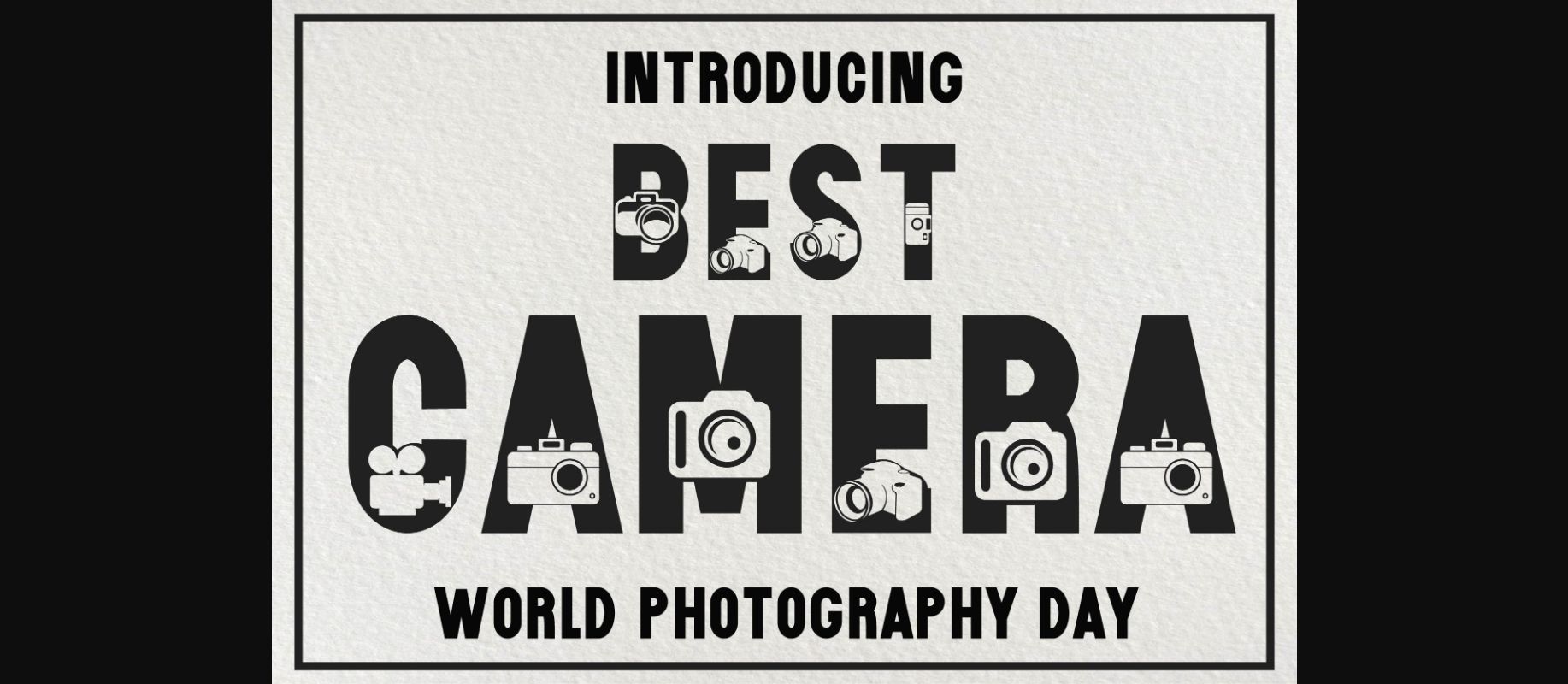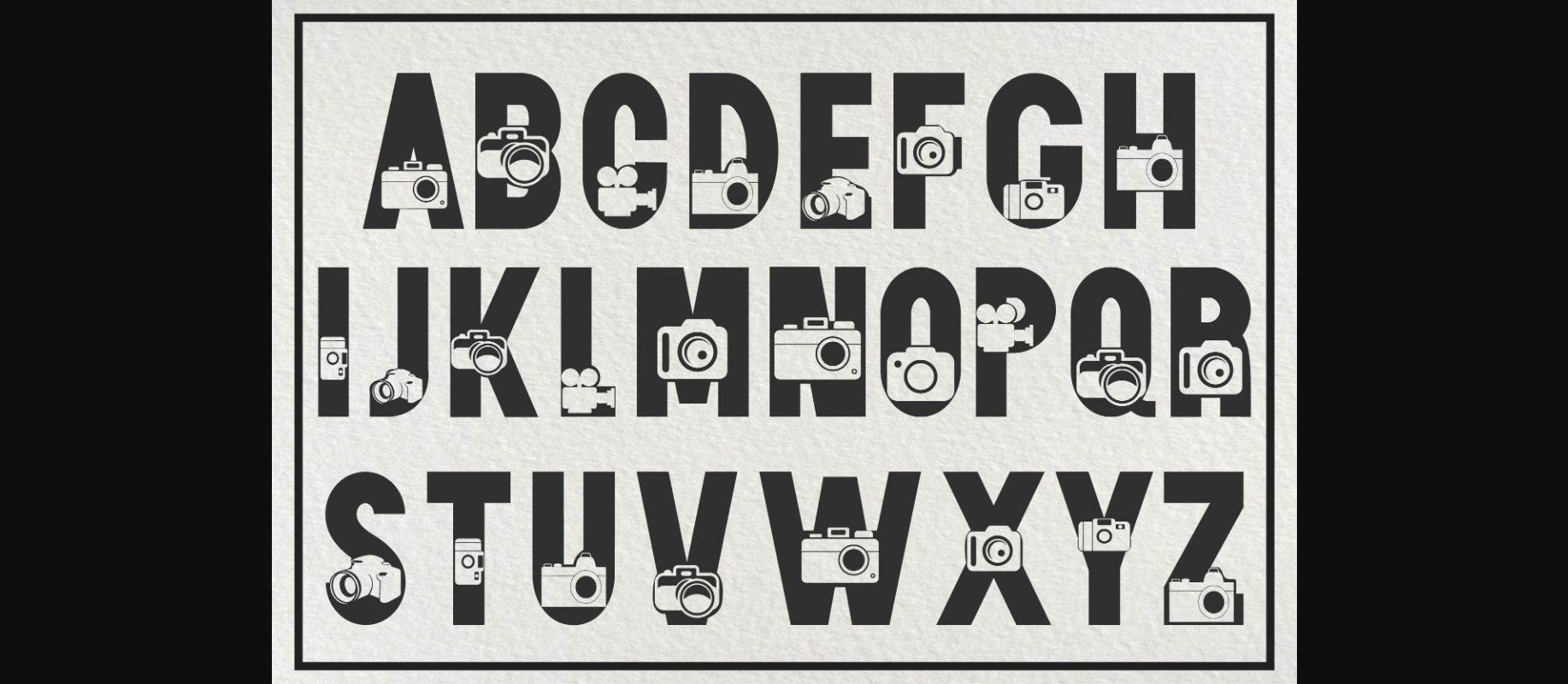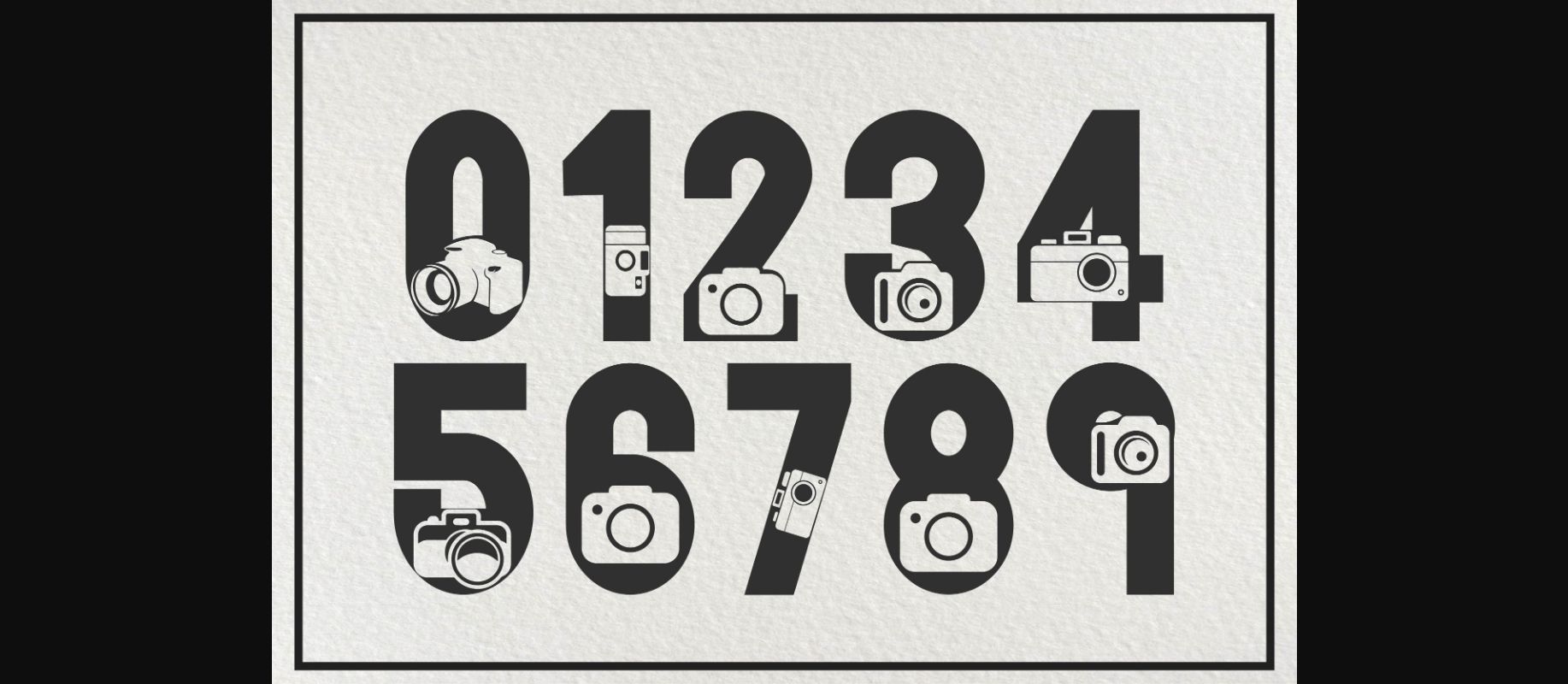
Best Camera Font
About Best Camera Font
Best Camera is a cool and original looking decorative font. It is suitable for logotype, headline font, corporate identity, brand identity, apparel industry, poster, music, movie, game, magazine, book, comic, cartoon, YouTube, Instagram, website, or any of your creative design projects.